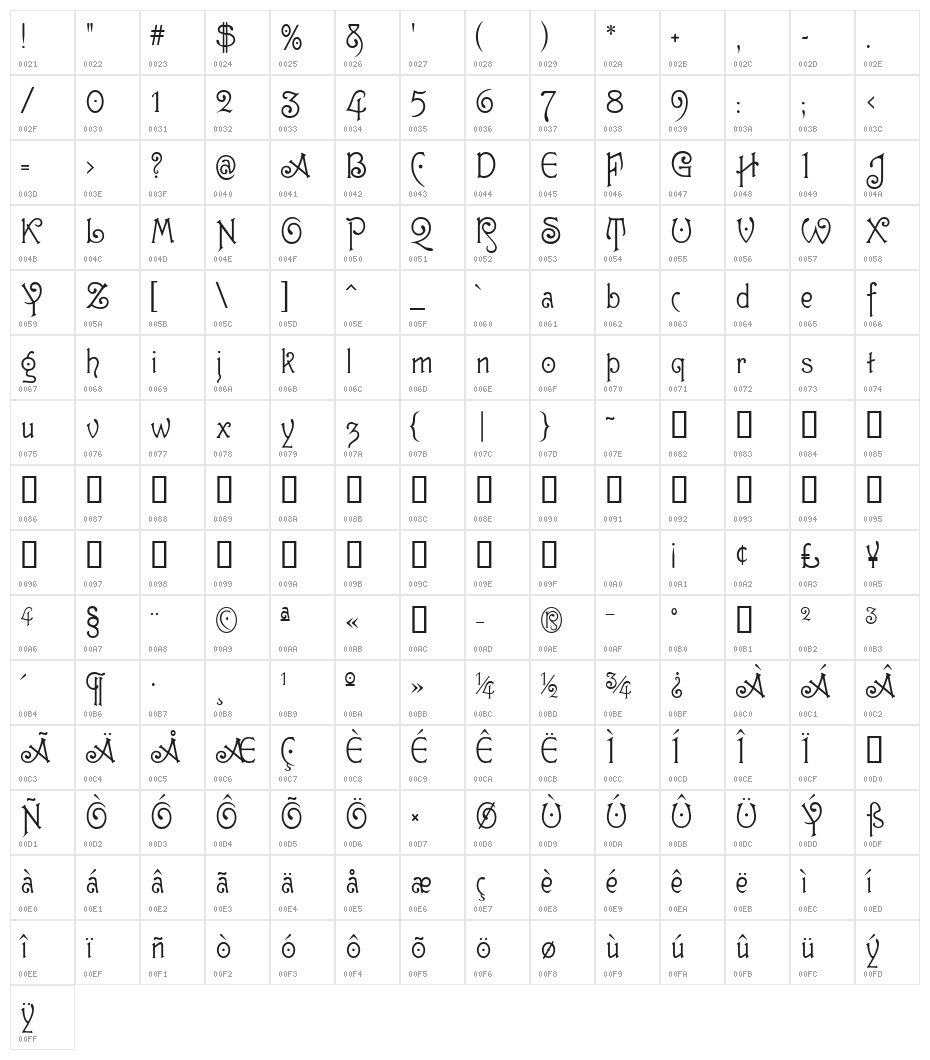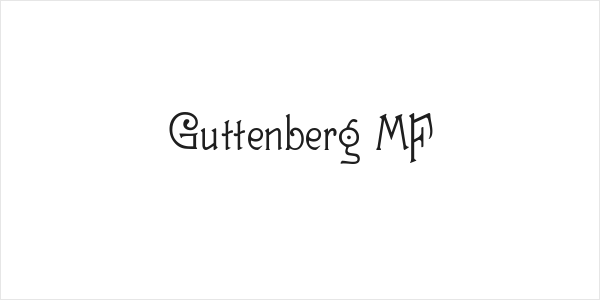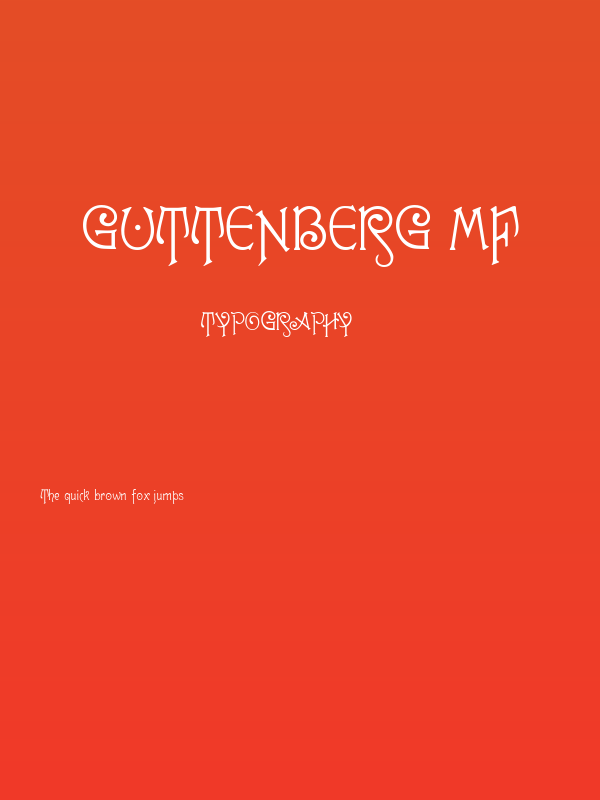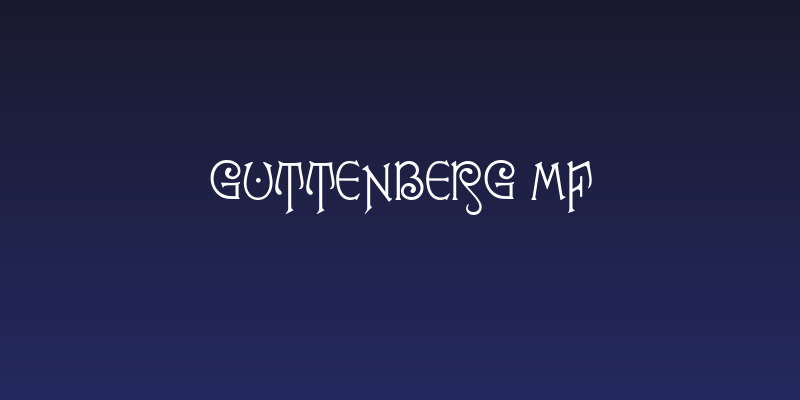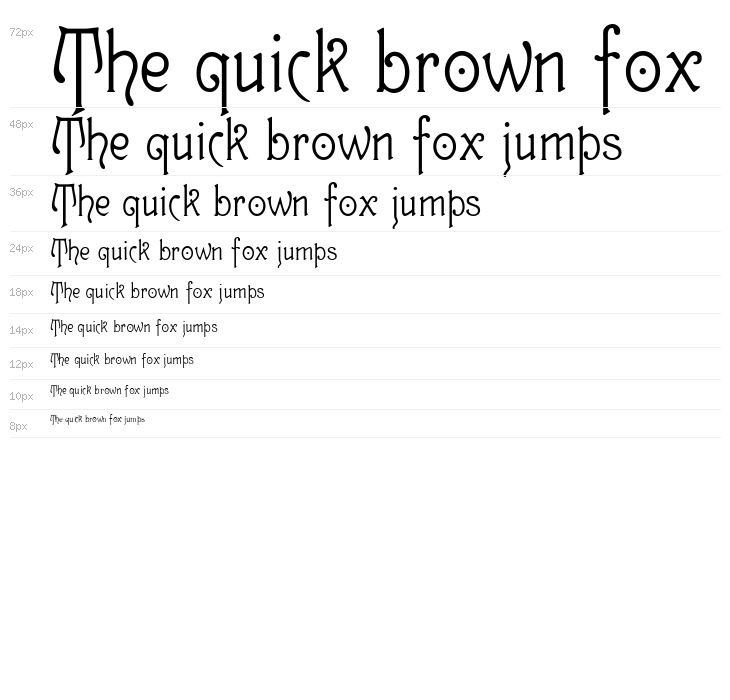
Guttenberg MF Font
Guttenberg MF Description
This font features a distinctive and artistic design, characterized by its ornate and intricate letterforms. The uppercase letters exhibit a unique blend of curves and sharp angles, giving them a medieval or gothic appearance. The lowercase letters maintain this decorative style, with some characters featuring elongated strokes and flourishes. The numerals are equally stylized, with a consistent theme of curves and loops that add to the overall aesthetic. Special characters are designed to match the elaborate style, making this font suitable for projects that require a touch of elegance and historical flair.
| Proposed Projects | Ideal for historical-themed designs, book covers, invitations, and branding that seeks a medieval or gothic touch. |